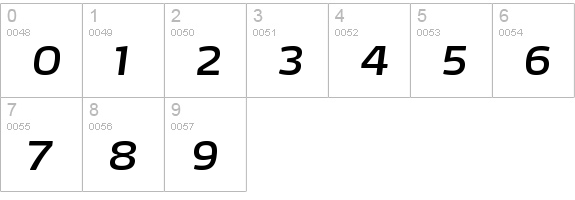
MaxLF-SemiBoldItalic Font Details
MaxLF-SemiBoldItalic is a stylish and modern font that exudes confidence and sophistication. With its semi-bold weight and italicized slant, this typeface adds a touch of flair to any design project. The sleek lines and elegant curves of MaxLF-SemiBoldItalic make it a versatile choice for both headers and body text. Best of all, MaxLF-SemiBoldItalic is available for free download at FontsMarket.com. Whether you're working on a professional presentation, a creative project, or simply looking to enhance your personal documents, this font is the perfect choice. Download MaxLF-SemiBoldItalic today and elevate your designs with its distinctive charm and readability.